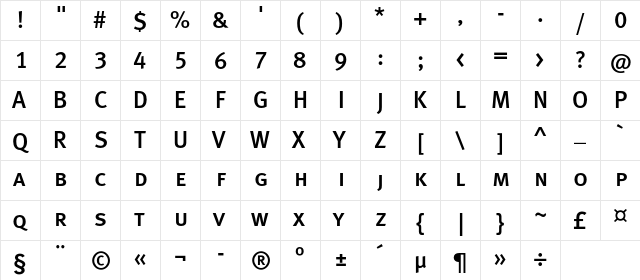
MetaMediumCapsLFC Regular
Design Context for MetaMediumCapsLFC Typeface
MetaMediumCapsLFC takes a measured approach to typography — its balanced proportions and neutral character make it a reliable workhorse for both digital and print work.